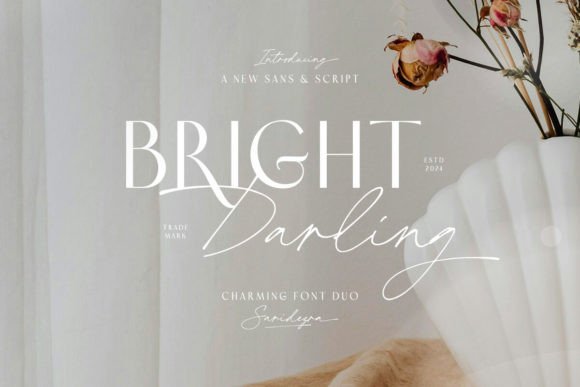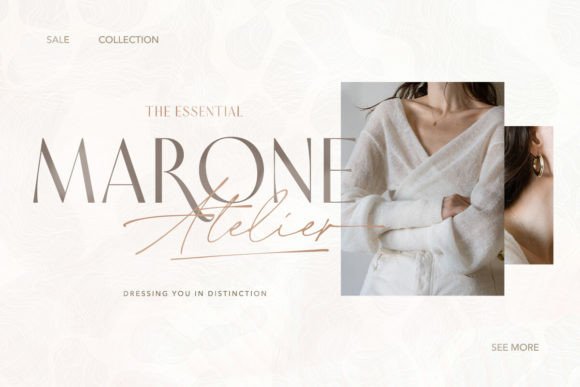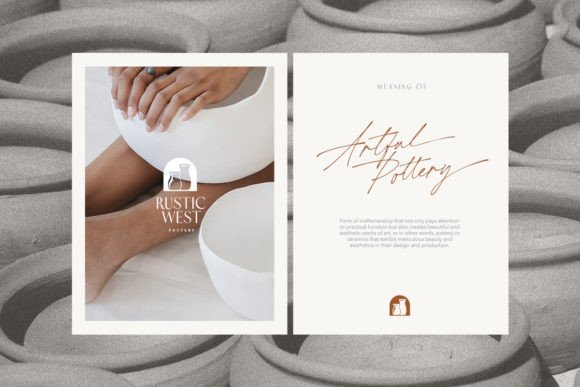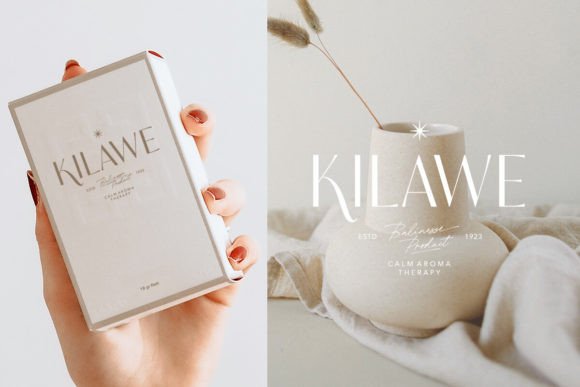
Bright Darling Duo Font
About the Bright Darling Duo Font
Step up your design game with Bright Darling Duo Font, a font that exudes confidence and style. Bright Darling is a stylish and elegant font duo, featuring a sophisticated sans-serif and a graceful script font. The sans exudes modern minimalism, while the script adds a touch of handcrafted elegance. Perfect for projects requiring a harmonious blend of chic simplicity and refined script, Bright Darling elevates your designs with timeless charm.
This duo excels in branding projects for luxury goods, fashion, or stationery, where the sans-serif can be used for logos and headlines, and the script for taglines or supplementary text. It also works beautifully on invitations, short-form marketing materials, and packaging designs that require a touch of sophisticated elegance. However, the script is unsuitable for body text or long paragraphs due to its low readability. Avoid using it in UI or applications requiring extensive text.
For optimal pairing, consider using a geometric sans-serif like Futura or a neutral serif such as Garamond with the Bright Darling sans-serif. These pairings provide a strong visual balance and enhance the overall design’s sophistication. When using the script, a simple, clean sans-serif like Lato or Open Sans will prevent visual clutter and ensure readability.
Bright Darling Duo possesses a refined and elegant personality, lending itself to projects requiring a timeless yet modern aesthetic. Its combination of minimalist sans-serif and graceful script evokes a sense of understated luxury and sophistication.
Bright Darling Duo Font Usage Examples
Bright Darling Duo Font Example